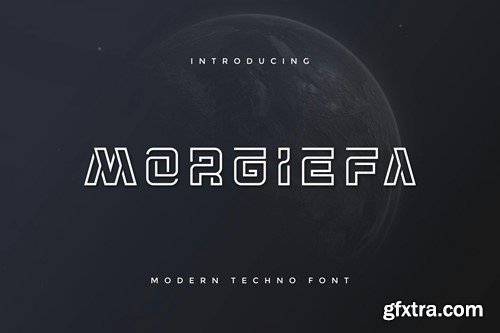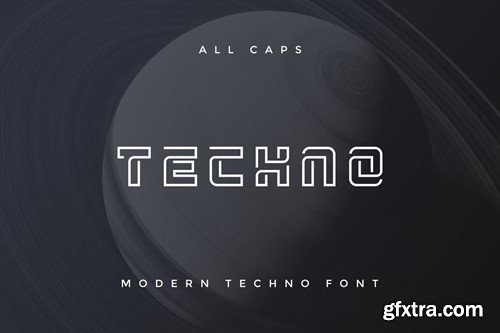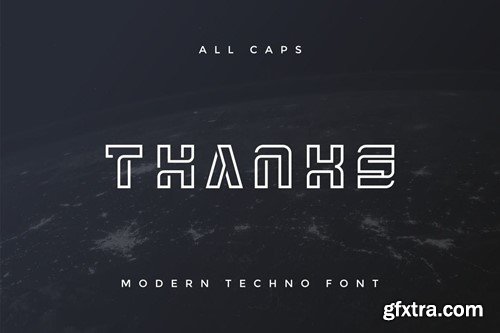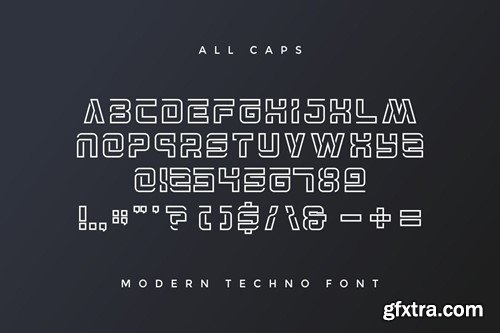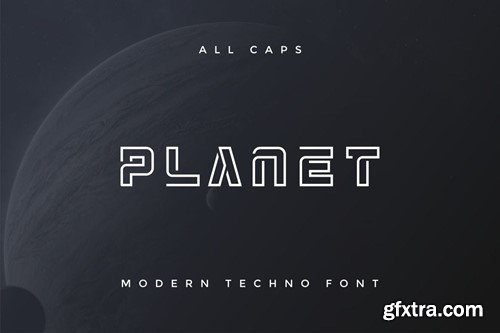
Morgiefa Modern Techno Font H2XNARH
Morgiefa Modern Techno Font
Introducing our new product Morgiefa - Modern Techno Font Morgiefa is a bold, modern display font with playful flair, ideal for attention-grabbing headlines, logos, and diverse design projects. Versatile and readable in both digital and print, Berong adds a dynamic touch to your message. availlable